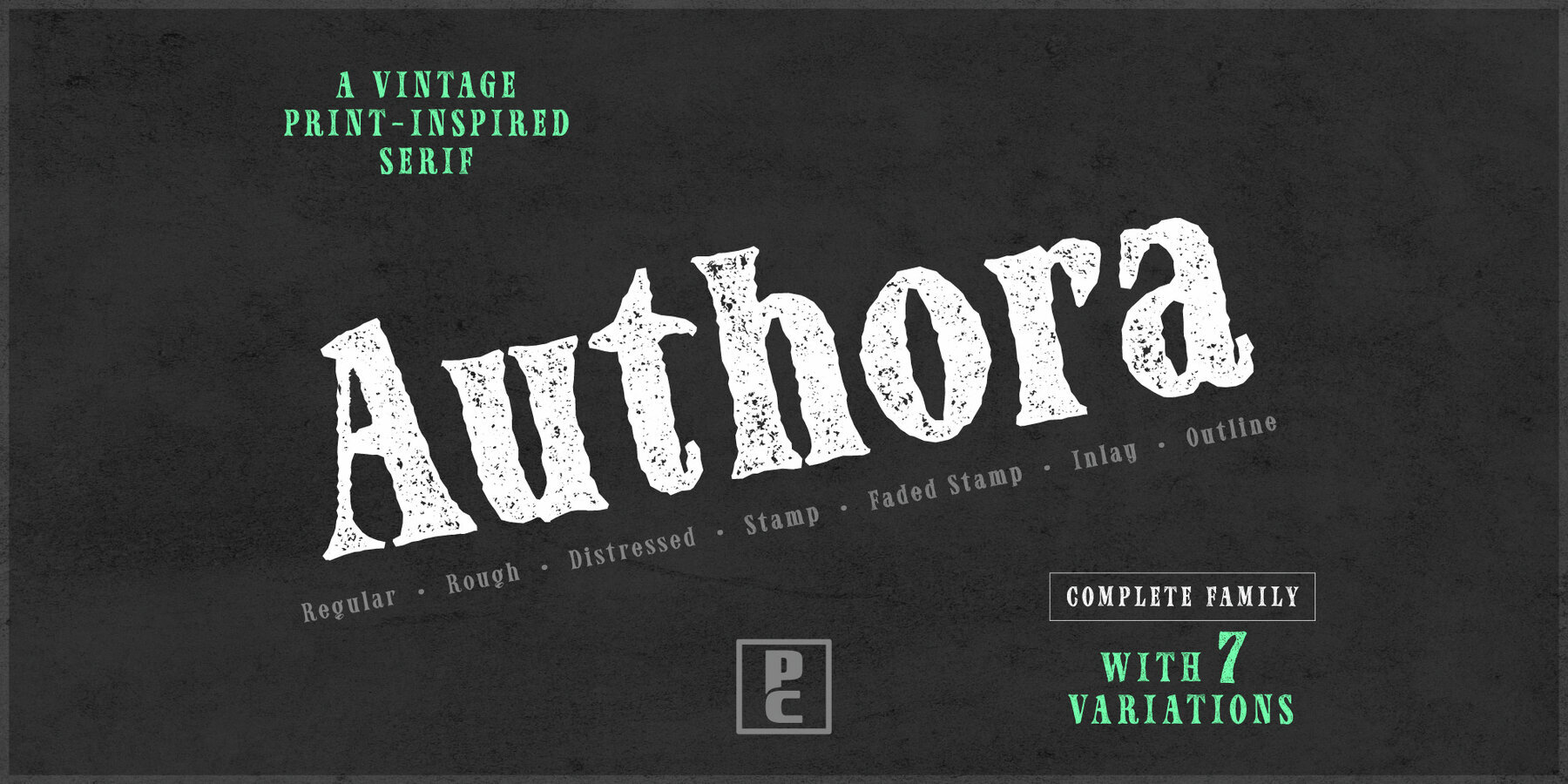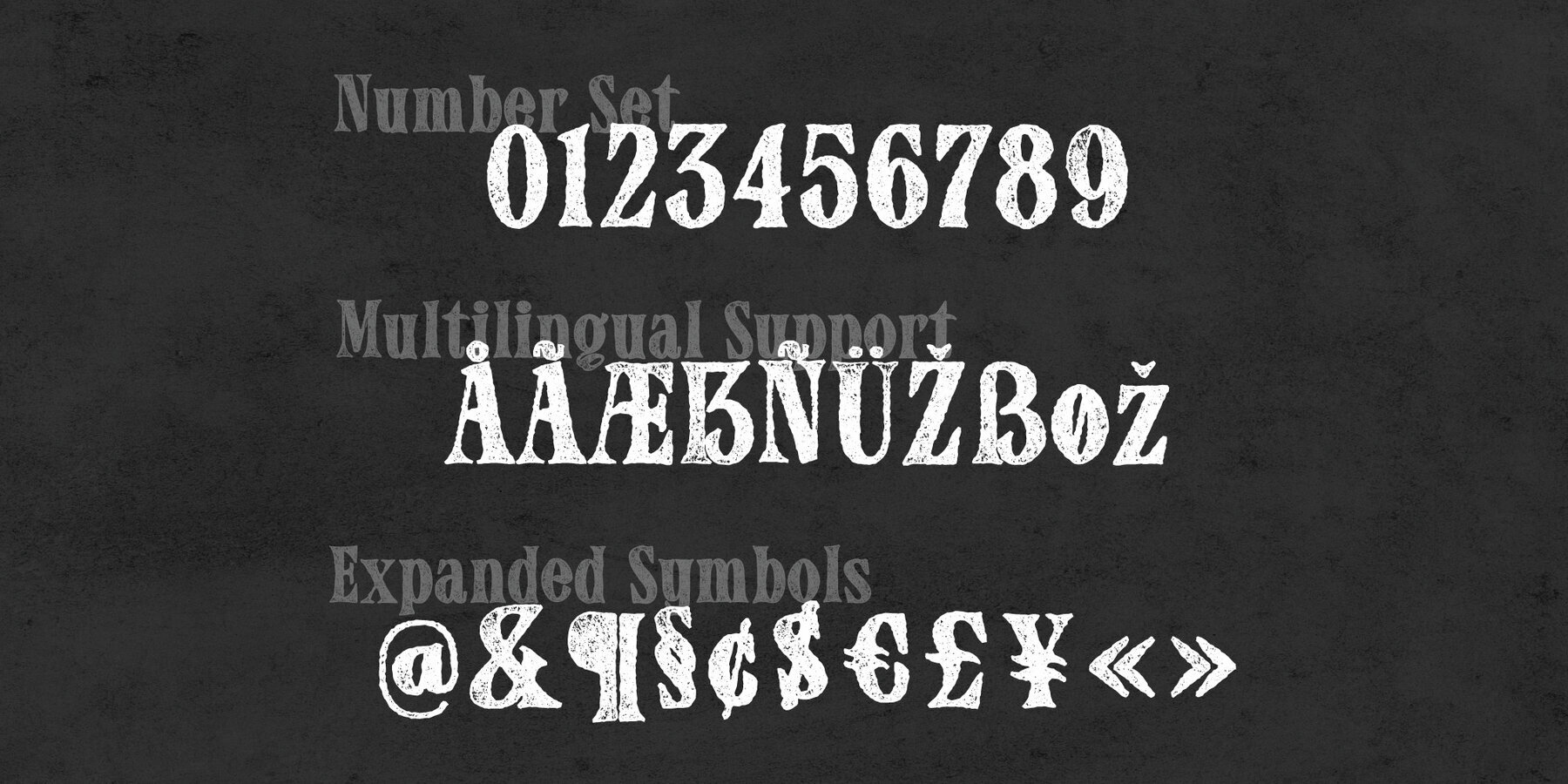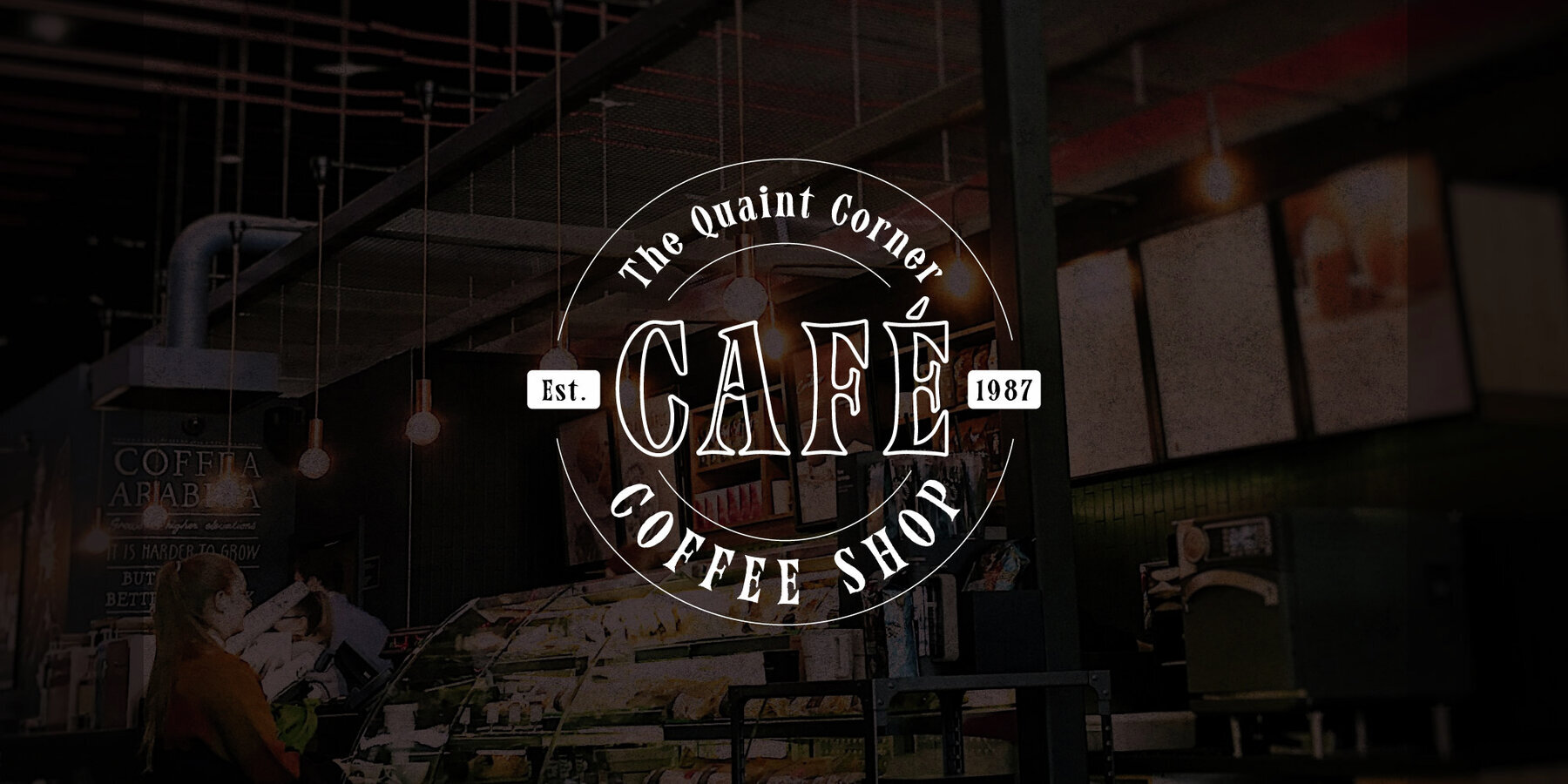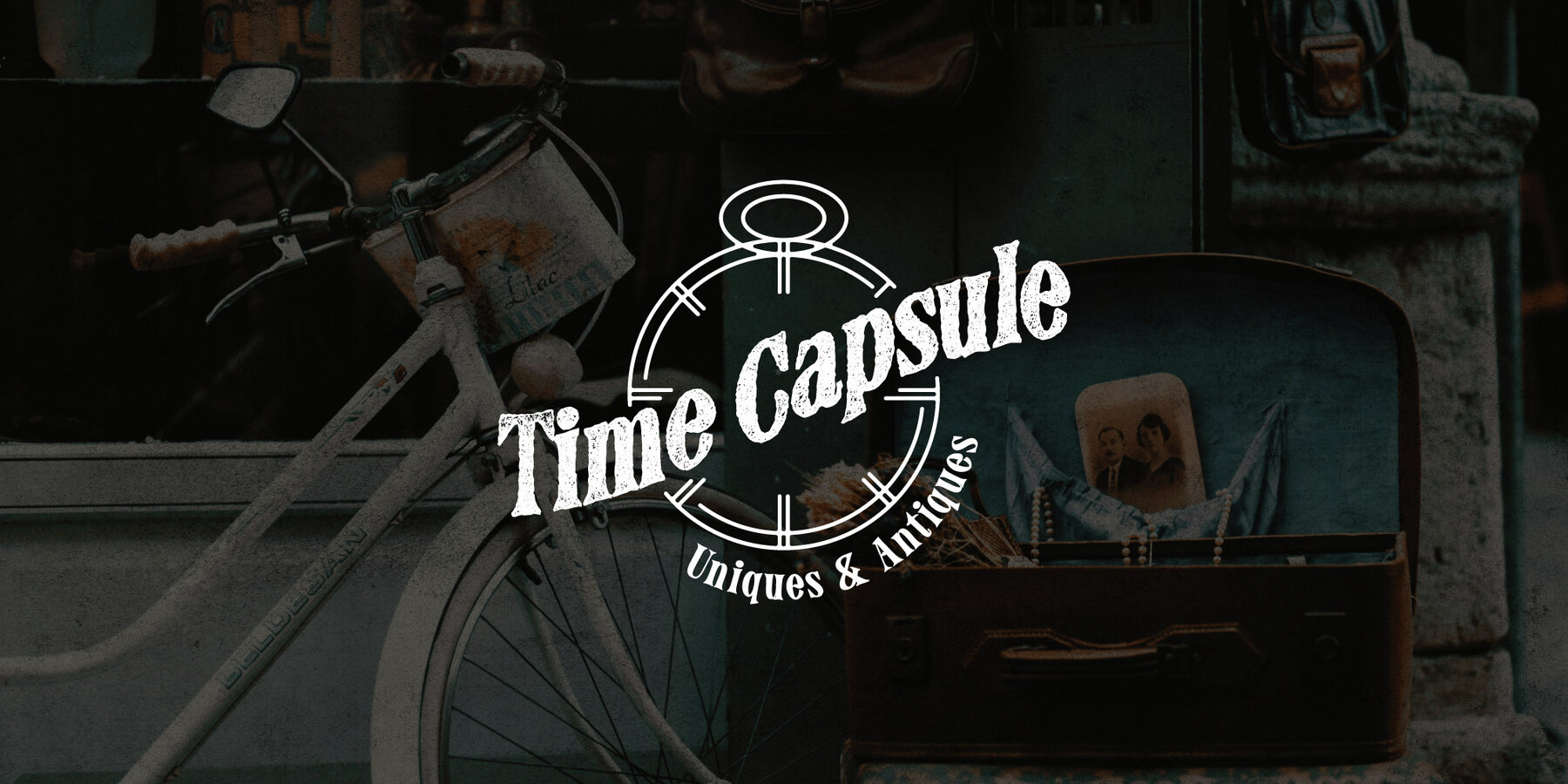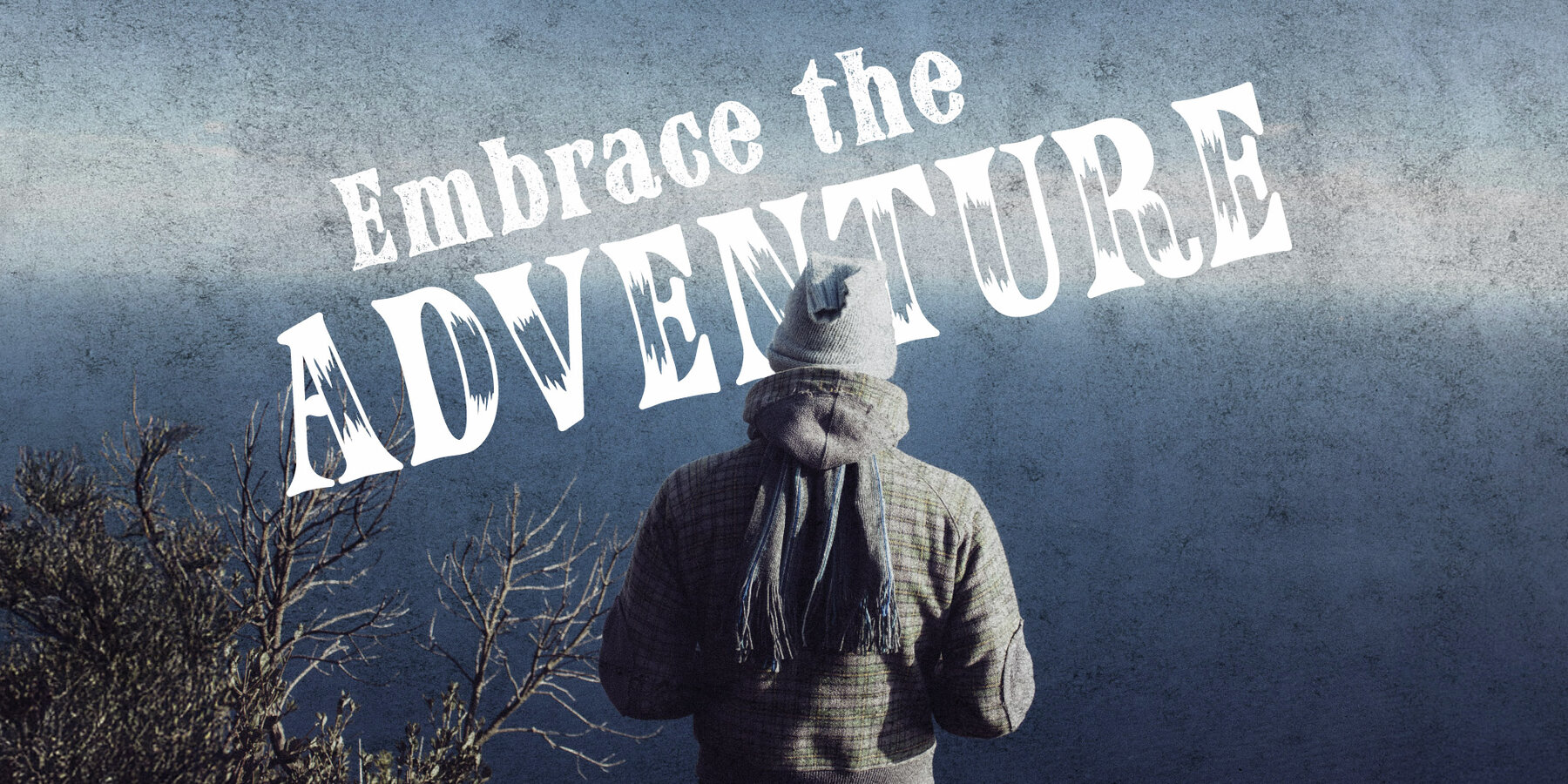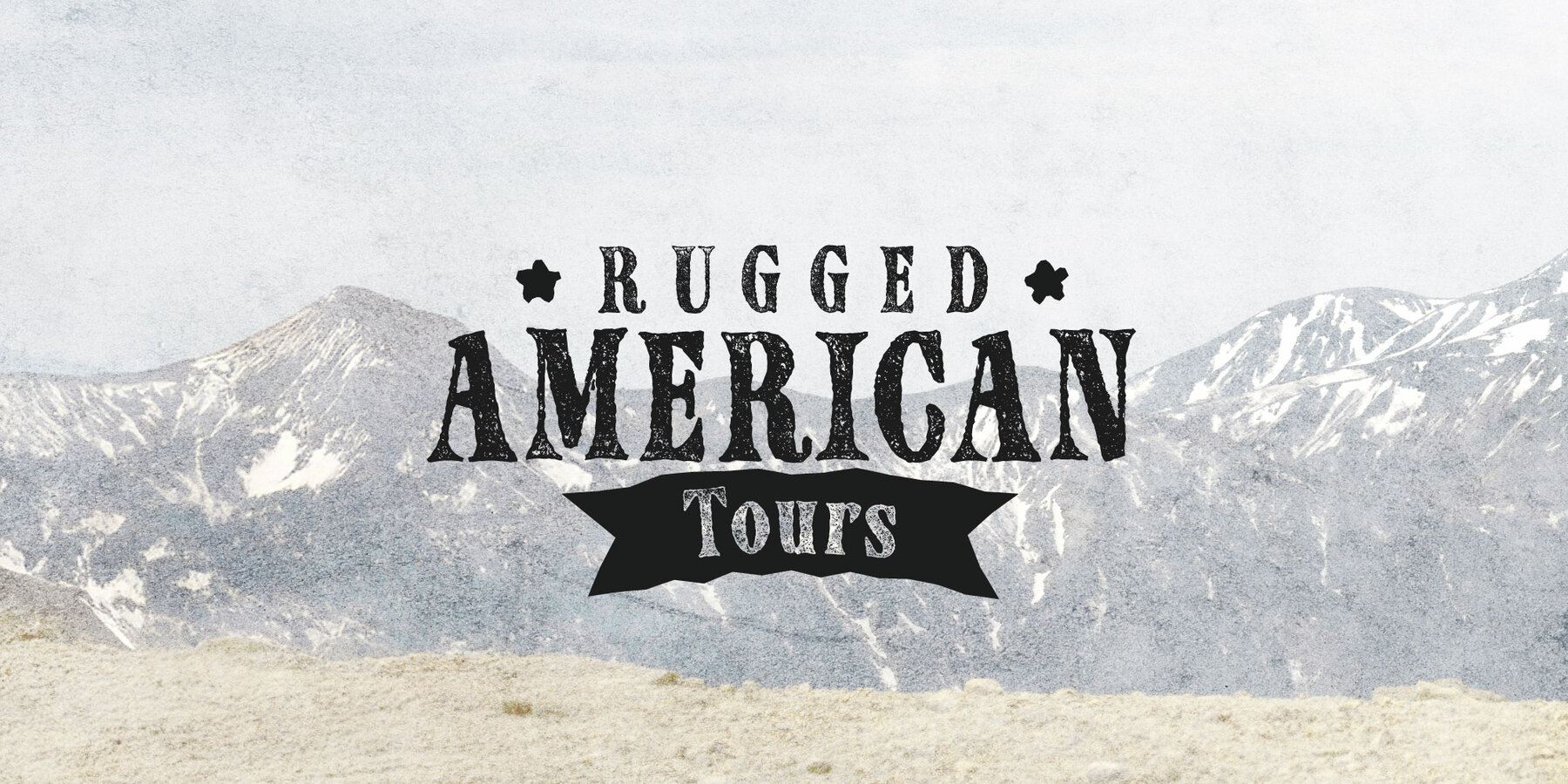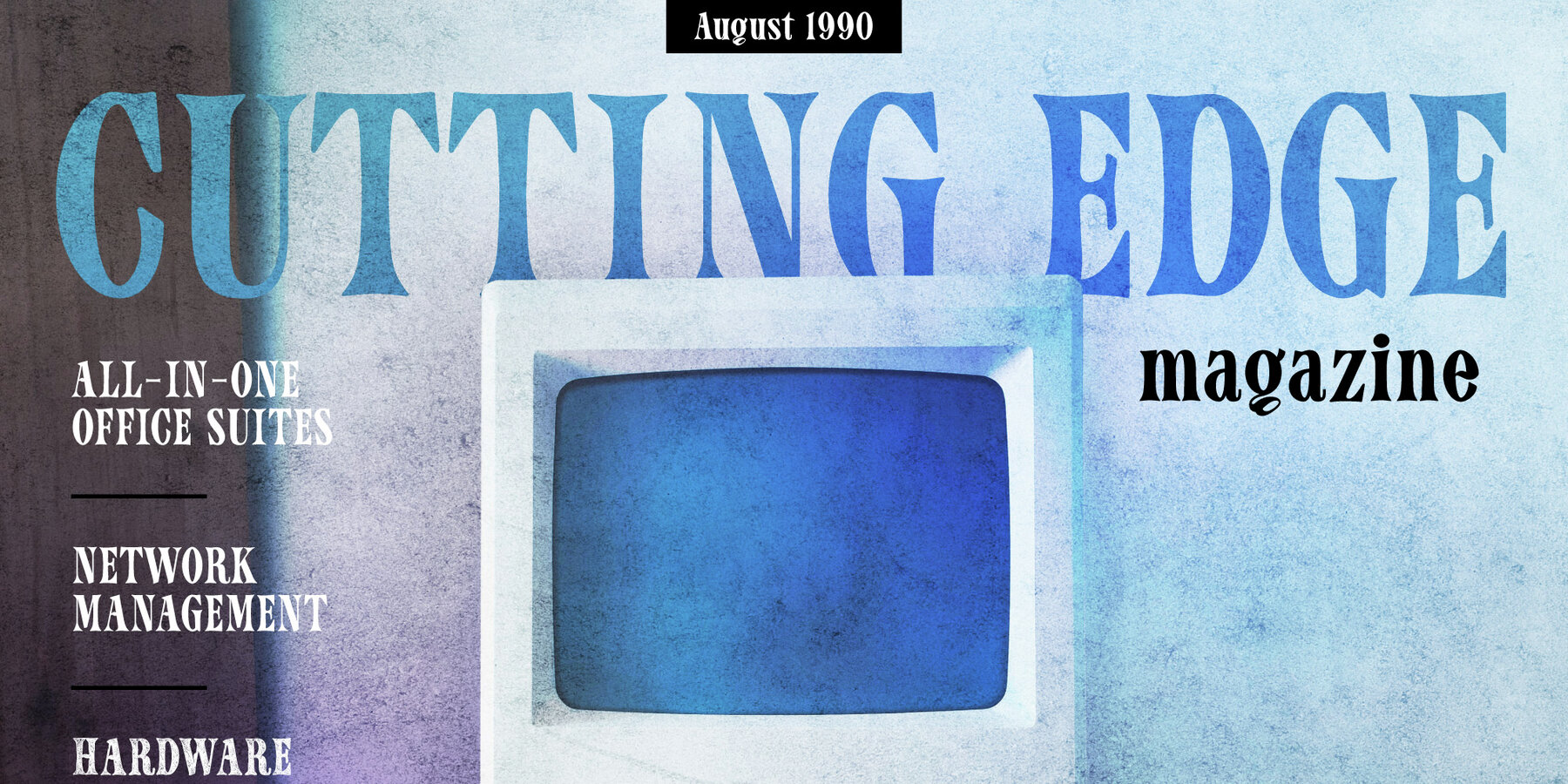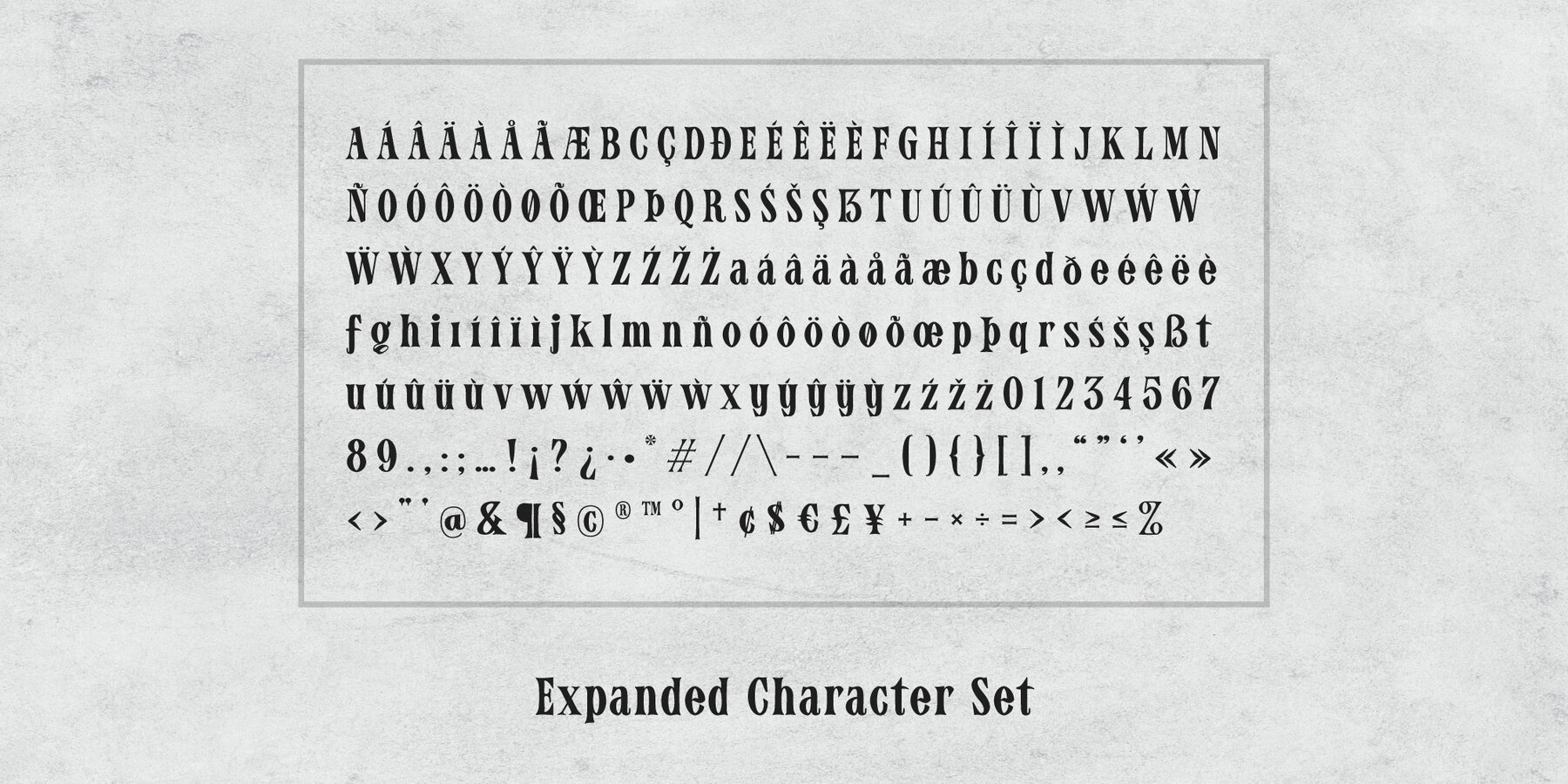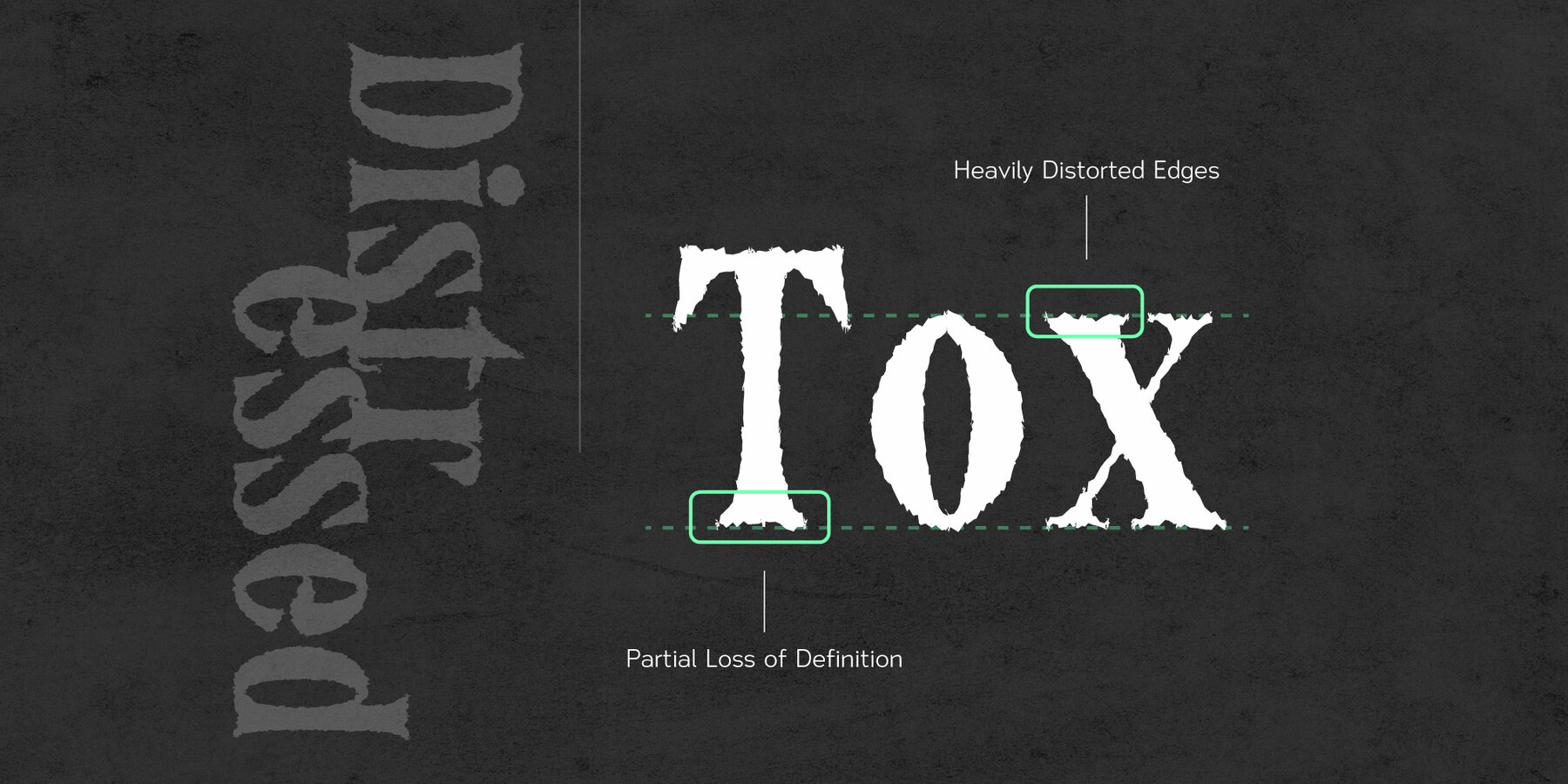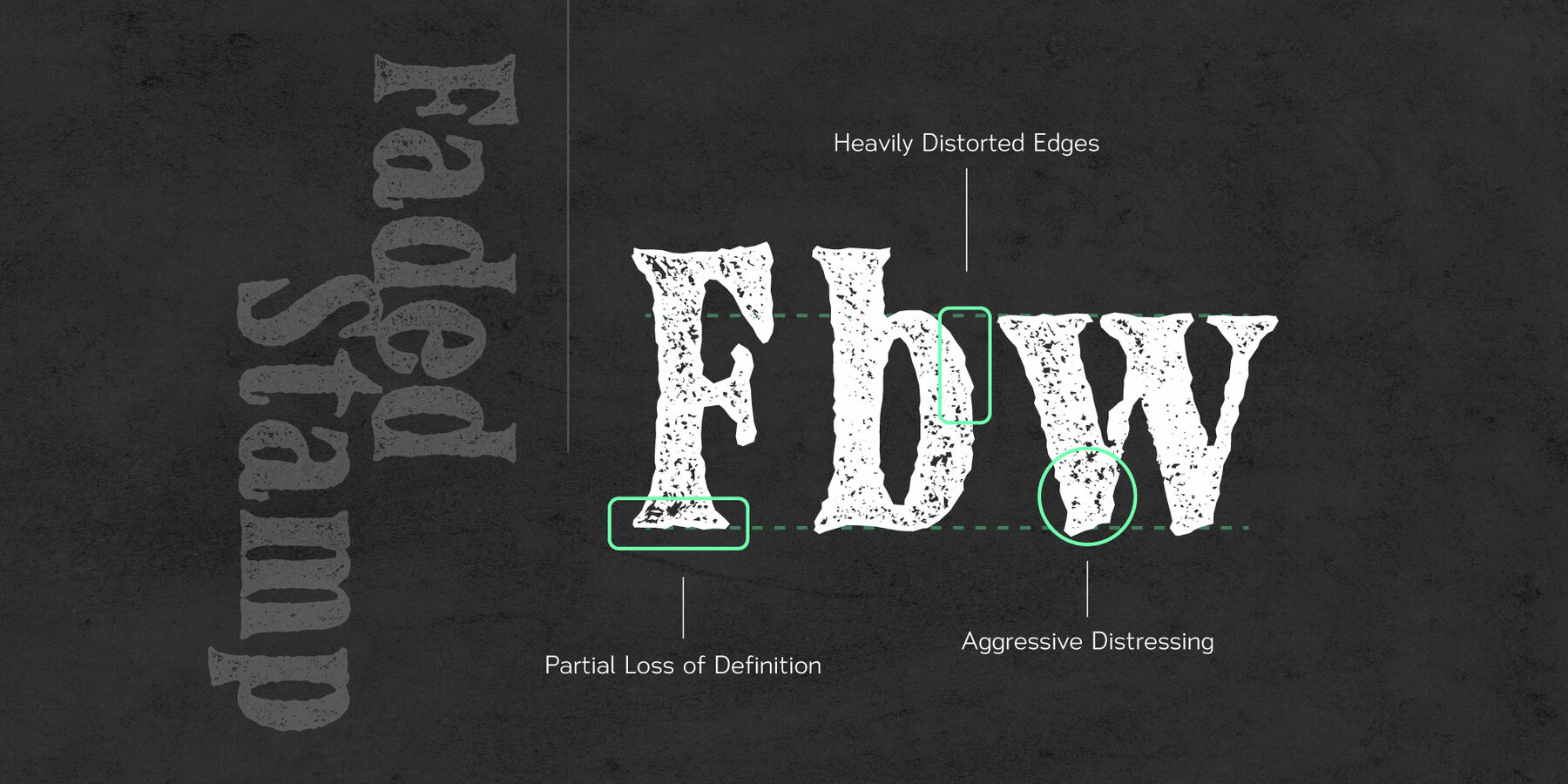
Authora Font
Authora Regular
Authora Distressed
Authora Faded Stamp
Authora Inlay
Authora Outline
Authora Rough
Authora Stamp
Authora blends vintage character with refined detail, bringing a timeless serif style to contemporary design projects. This typeface draws inspiration from classic print techniques and mid-century typography, offering seven distinctive styles. Each variation gives your composition a unique edge—ranging from clean sophistication to weathered authenticity. Authora’s adaptability makes it ideal for branding, editorial layouts, packaging, posters, book covers, and apparel that require both elegance and rugged personality.Authora Vintage Serif Typeface
Balance modern treatments and rustic charm with Authora’s thoughtfully crafted letterforms. Its versatility lets you layer and combine styles for compositions that feel both nostalgic and fresh. With precise kerning, multilingual support, and a full suite of characters, numerals, and punctuation, Authora ensures professional-quality results across any use.Features